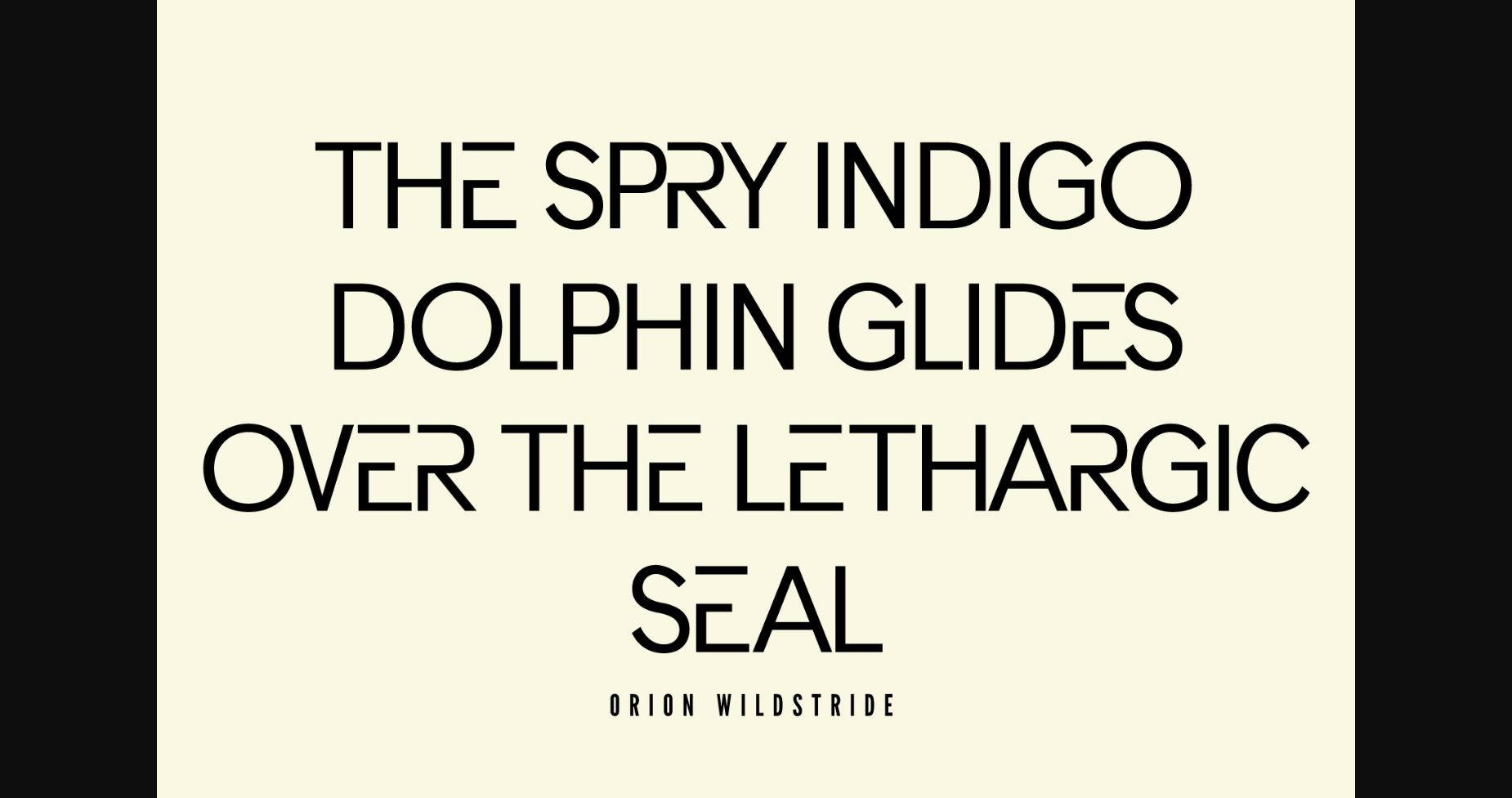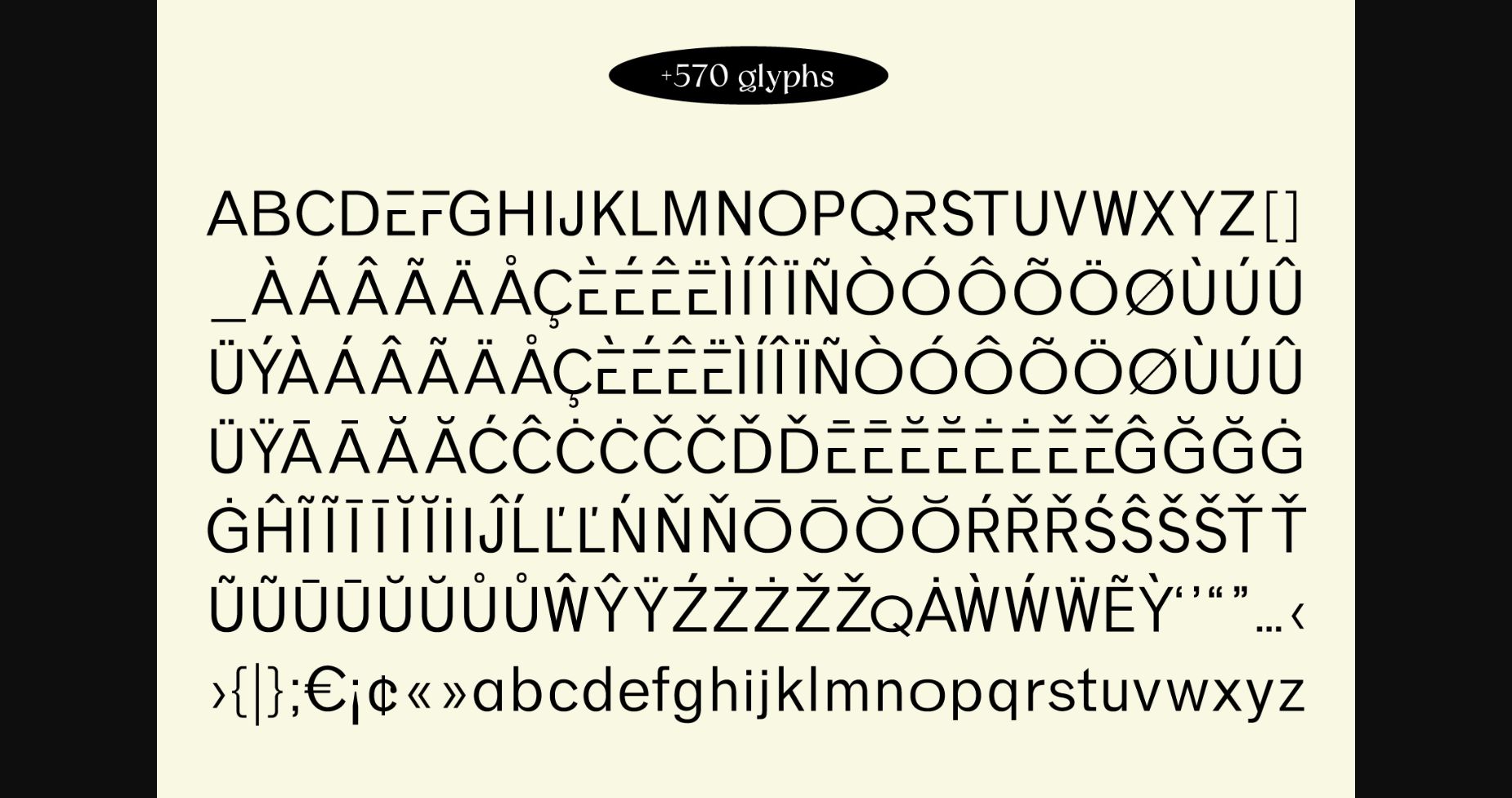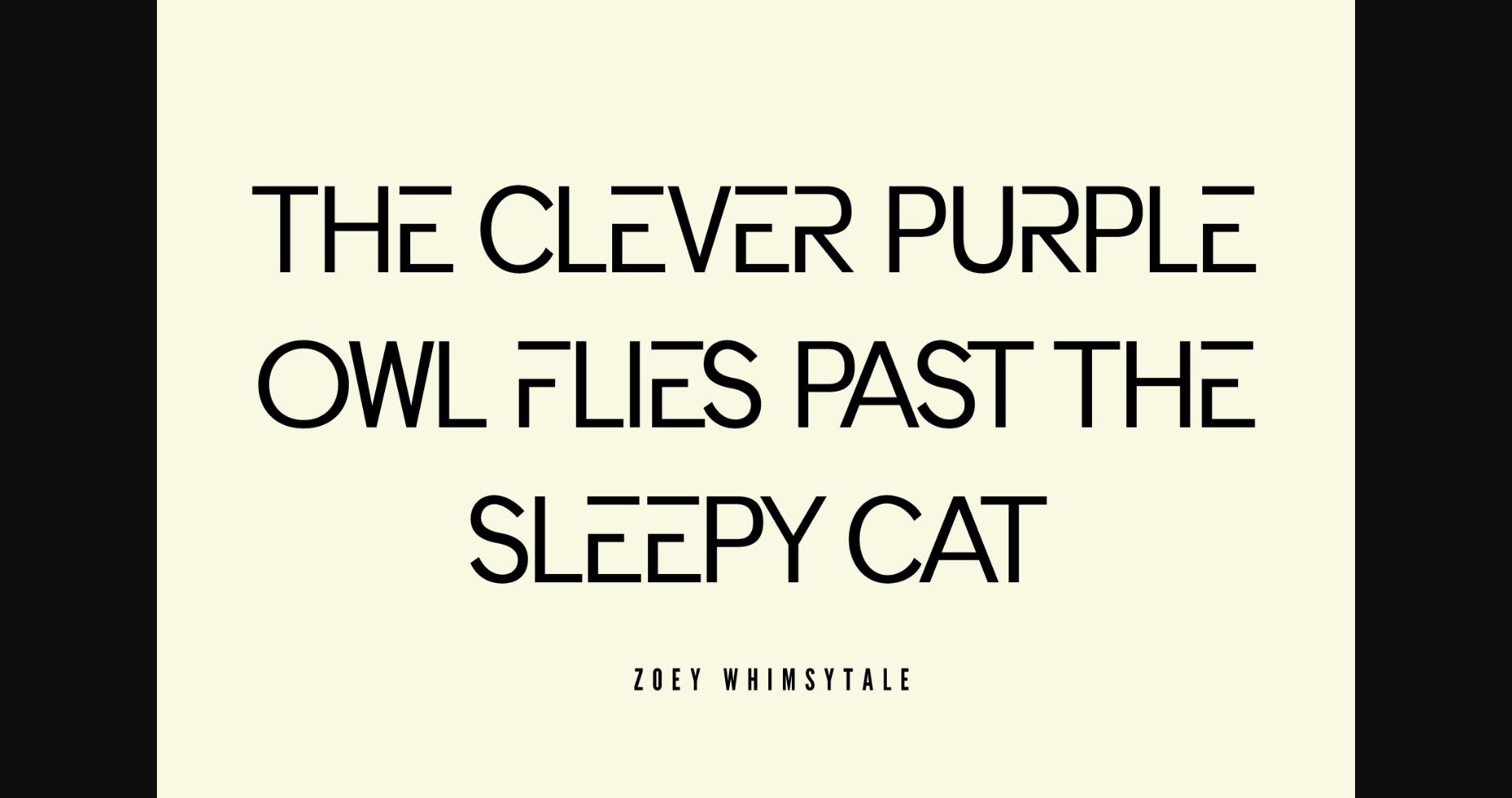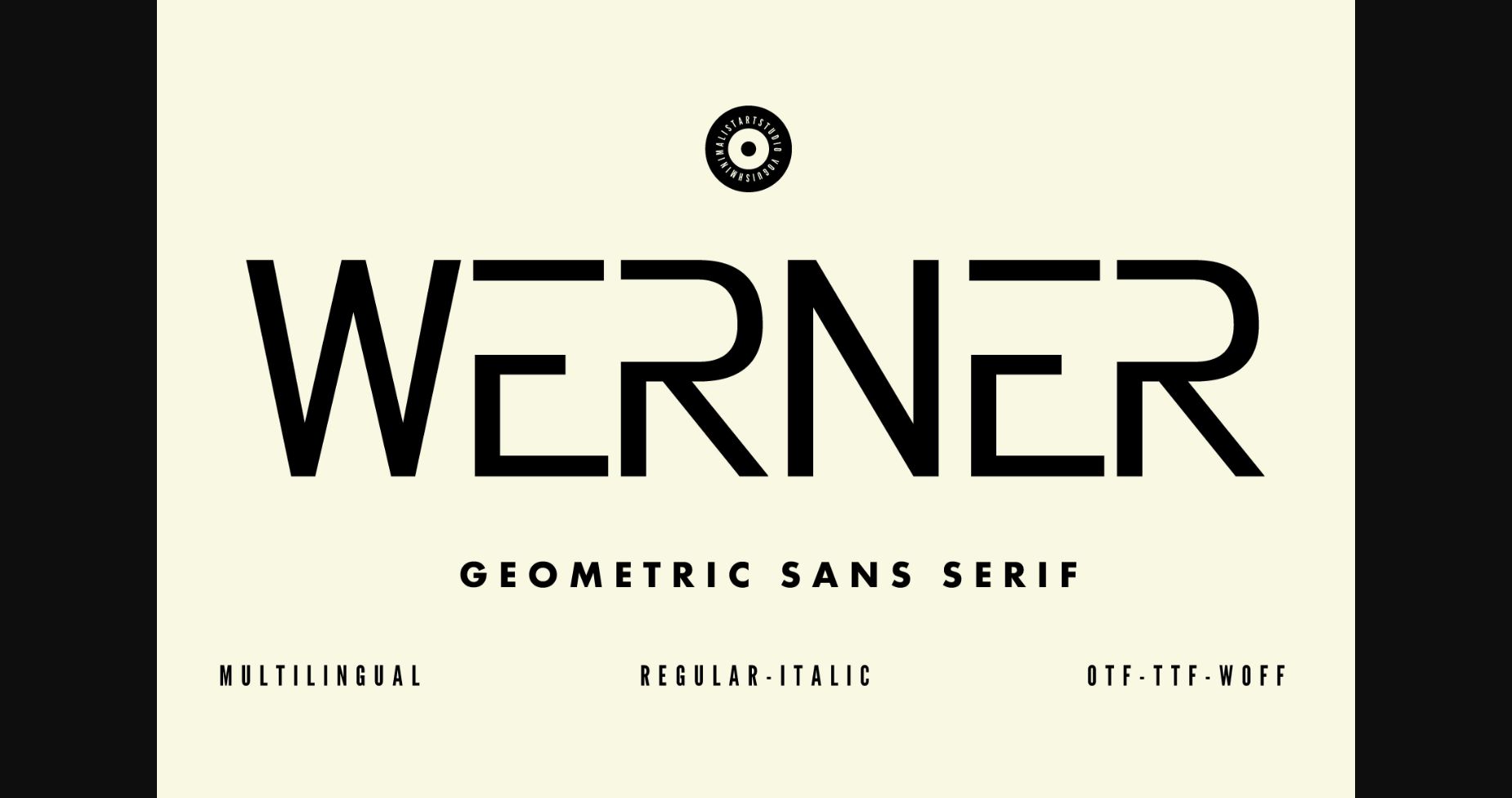
About Werner Font
Discover Werner, the minimalist and chic geometric sans serif typeface that redefines modernity. With clean lines and timeless appeal, this versatile font effortlessly enhances any project, ensuring your message remains captivating and clear. Elevate your designs with Werner and experience the magic of modern elegance.